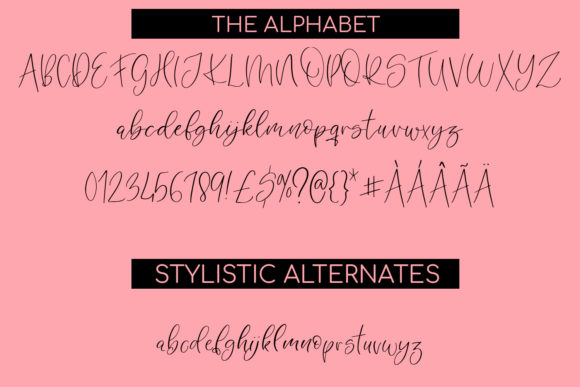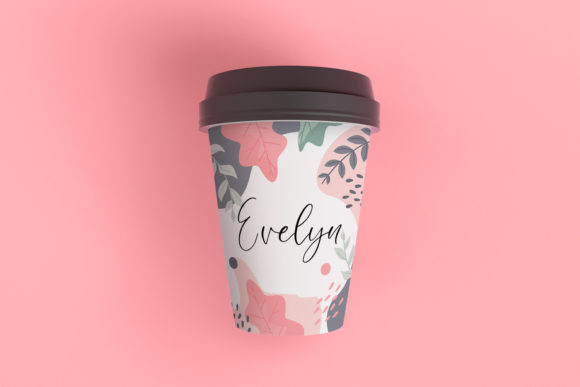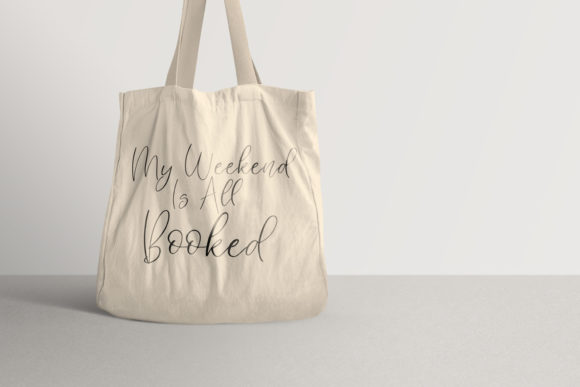
Discover the Charm of Angelina Font: Elevate Your DIY Projects with Style
Are you a designer, crafter, or DIY enthusiast looking for the perfect script font to add a touch of elegance and personality to your projects? Look no further than Angelina Font! This beautiful script font is designed to bring a sense of sophistication and whimsy to your creations, making it an ideal choice for a wide range of applications.
The Unique Charm of Angelina Font
Angelina Font boasts a distinctive signature feel that sets it apart from other script fonts. Its elegant, cursive strokes and carefully crafted letterforms evoke a sense of luxury and refinement, making it perfect for projects that require a touch of high-end style. Whether you’re working on a craft project, designing a logo, or creating digital content, Angelina Font is sure to impress.
Key Features of Angelina Font
One of the standout features of Angelina Font is its inclusion of stylistic alternates for lower case letters. This thoughtful design element allows you to cut the connector short, adding a touch of versatility to your typography. With Angelina Font, you can create a range of different looks and styles, from elegant and refined to playful and whimsical.
Why Choose Angelina Font for Your DIY Projects?
So why should you choose Angelina Font for your DIY projects? Here are just a few compelling reasons:
- Elegant and Refined: Angelina Font’s sophisticated design makes it perfect for projects that require a touch of luxury and refinement.
- Versatile: With its stylistic alternates and range of applications, Angelina Font is an incredibly versatile choice for designers and crafters.
- Easy to Use: Whether you’re a seasoned designer or a DIY novice, Angelina Font is easy to use and integrate into your projects.
- Unique: Angelina Font’s distinctive signature feel sets it apart from other script fonts, ensuring that your projects stand out from the crowd.
Using Angelina Font in Your DIY Projects
So how can you use Angelina Font in your DIY projects? Here are a few ideas to get you started:
- Crafting: Use Angelina Font to add a touch of elegance to your craft projects, from handmade cards and invitations to scrapbooking and journaling.
- Logo Design: Create a professional-looking logo for your business or brand with Angelina Font’s sophisticated and refined design.
- Digital Content: Use Angelina Font to add a touch of personality and style to your digital content, from social media graphics to blog posts and website headers.
Tips and Tricks for Getting the Most Out of Angelina Font
To get the most out of Angelina Font, here are a few tips and tricks to keep in mind:
- Experiment with Different Sizes: Angelina Font looks great in a range of sizes, from large and bold to small and delicate.
- Play with Color: Try pairing Angelina Font with different colors and textures to add depth and interest to your projects.
- Mix and Match: Combine Angelina Font with other fonts and design elements to create a unique and eye-catching look.
In conclusion, Angelina Font is a beautiful and versatile script font that’s perfect for designers, crafters, and DIY enthusiasts. With its elegant design, stylistic alternates, and range of applications, Angelina Font is sure to become a go-to choice for anyone looking to add a touch of style and sophistication to their projects. So why wait? Download Angelina Font today and start creating your own stunning DIY projects!